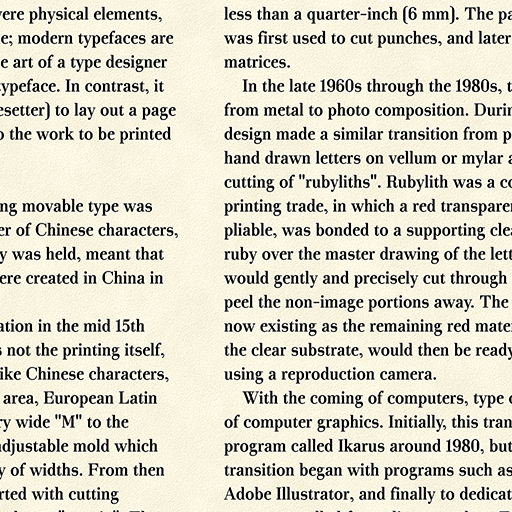
Almost perfect!
I love it!!!
This is really impressive. Good work. Only thing is "8" seems a little thick
WHAT HOW HOW HOW HHHHHHHHHHHHHOOOOOOOOOOOOOWWWWWWWWWWWW
"f" and "2" seem a little funky... But overall, 163901381367139689630715893406/10
This looks super smooth and nice, the combination of lowercase f + certain letters (b, h, i, j, k, l) look weird as the tip of the f clashes with them…
this font kinda is similar to Didot
Font Rating 6487646636646456383764664545636453573746464455463633737635455556555353535344453554545455454375574746746347637363764736564657375765746575757858575883857474729284747/10
could we go latin supplement
Ristruttoby Echo Heo (bluemon)